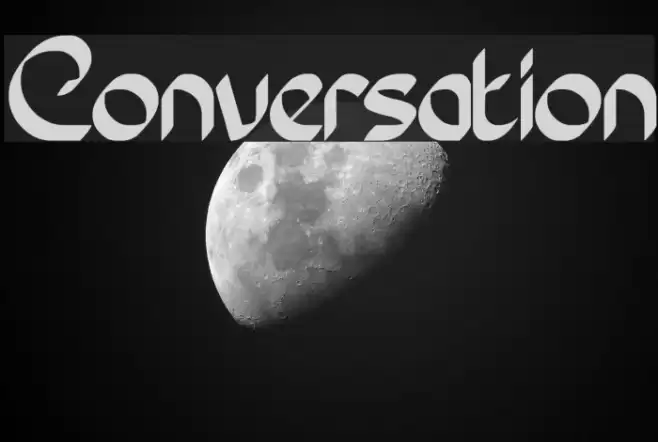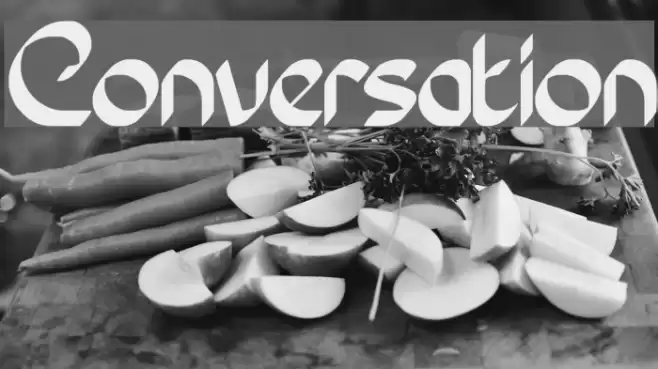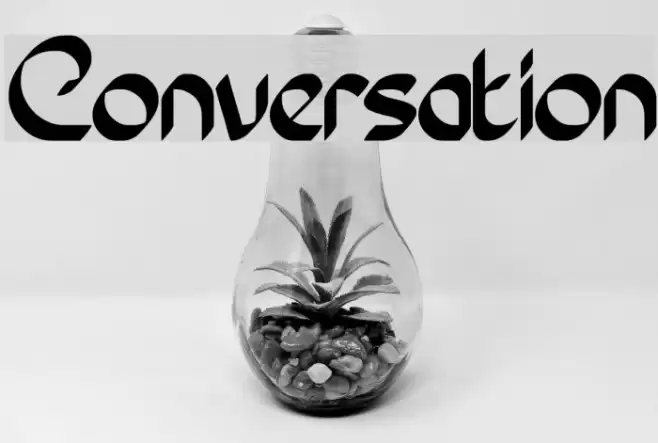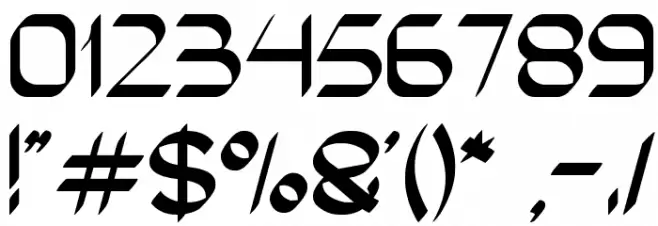
Conversation Font
Conversation Description
This font features a bold and futuristic design with sharp angles and geometric shapes. The characters are uniquely styled with a combination of straight lines and curves, creating a dynamic and modern appearance. The uppercase letters are particularly striking, with a strong presence and distinctive cuts that give them an edgy look. The lowercase letters maintain the same boldness, ensuring consistency throughout the typeface. Numbers and special characters are designed to match the overall aesthetic, making this font versatile for various applications. Its boldness and unique style make it ideal for attention-grabbing designs.
A bold, futuristic font with sharp angles and geometric shapes from Uncategorized fonts.
- Proposed Projects: Ideal for sci-fi themed projects, modern branding, tech-related designs, and eye-catching posters.